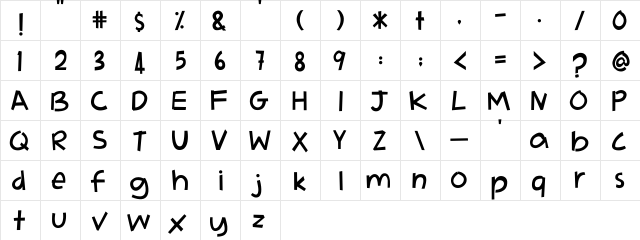
Adikku Pandai Menari Regular
Design Context for Adikku Pandai Menari Typeface
Adikku Pandai Menari is a composed and adaptable typeface that performs quietly and consistently across a wide range of design contexts.